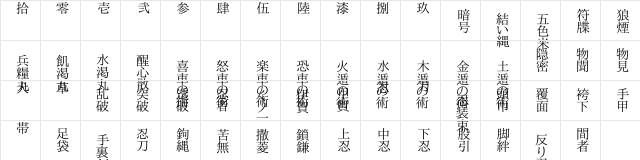
shinobi Regular
Design Context for shinobi Typeface
shinobi takes a measured approach to typography — its balanced proportions and neutral character make it a reliable workhorse for both digital and print work.